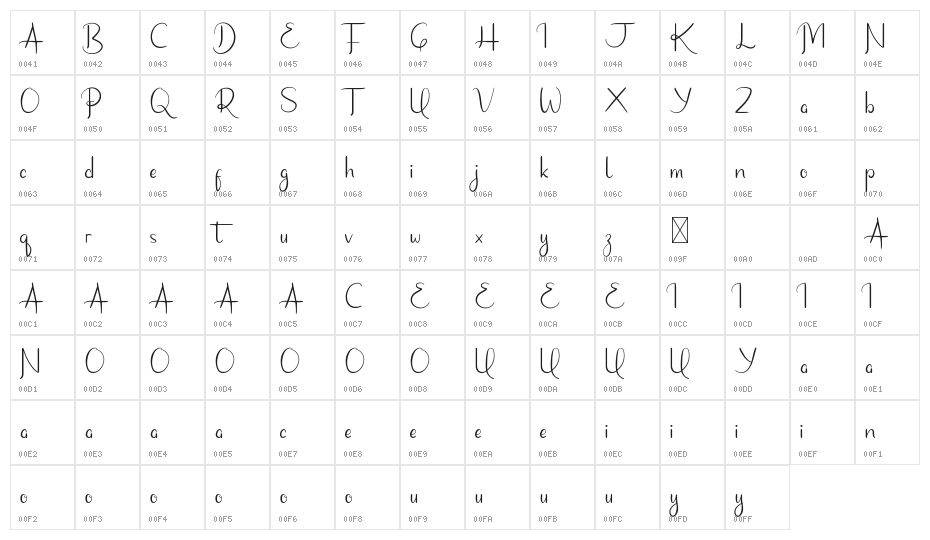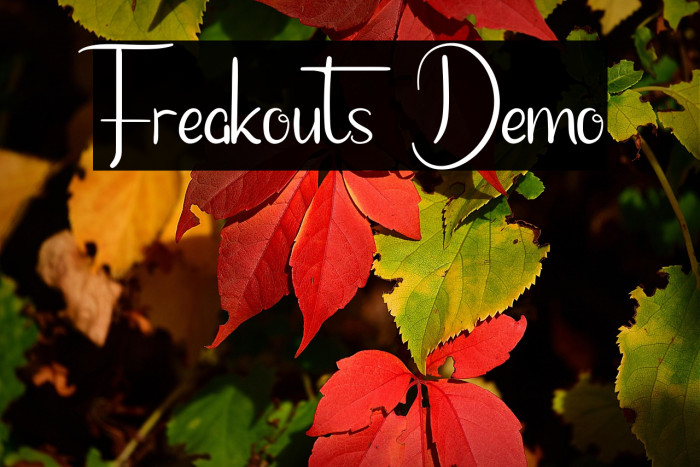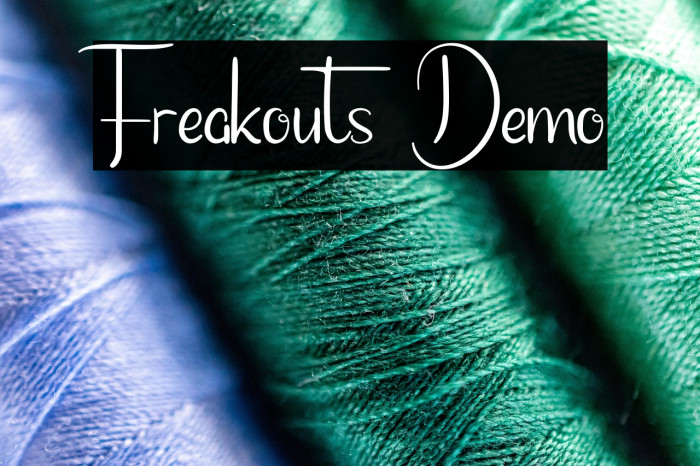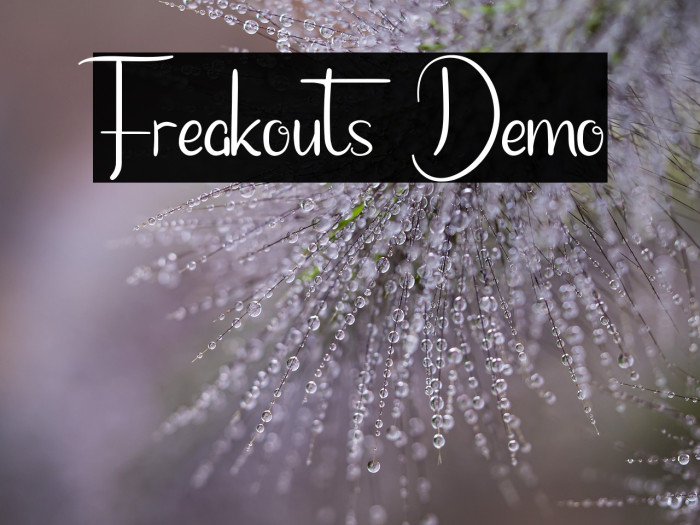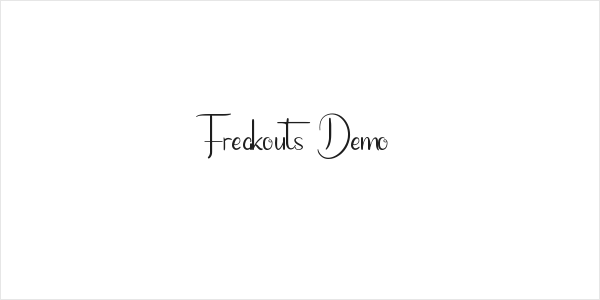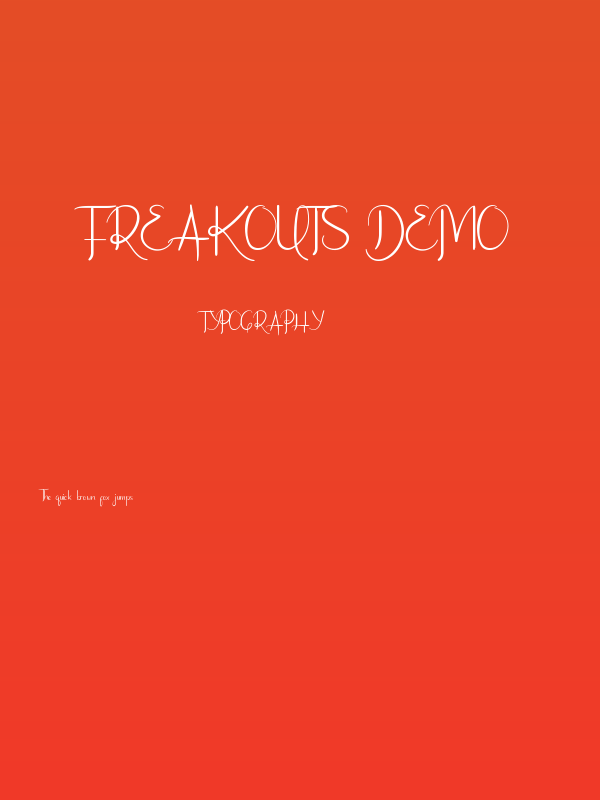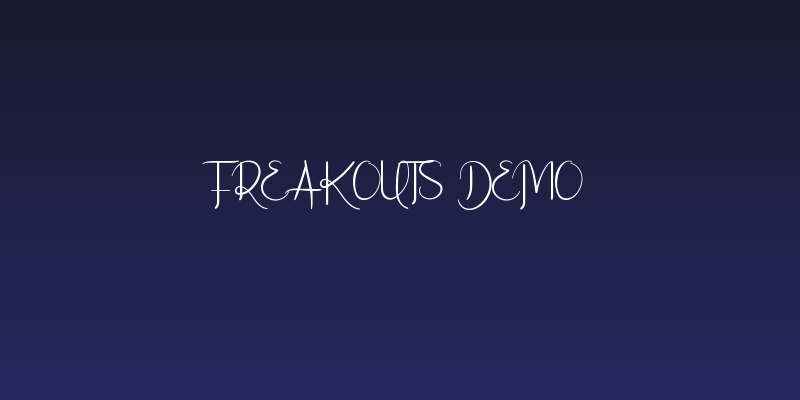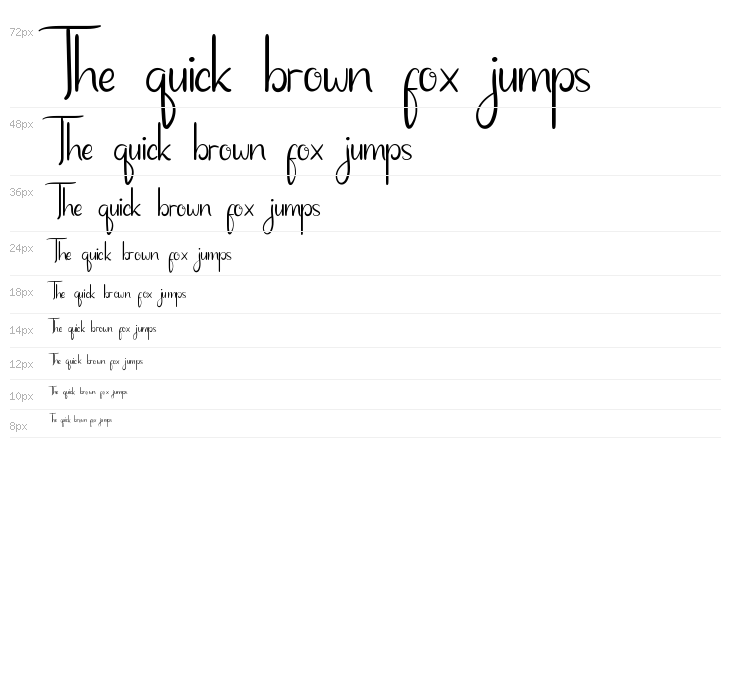
Freakouts Demo Font
Freakouts Demo Description
This font features a whimsical and decorative style, characterized by its elegant and flowing letterforms. The uppercase letters are tall and slender, with unique flourishes and loops that add a playful touch. The lowercase letters maintain this decorative theme, with some characters featuring distinctive swashes and curls. The overall design is cohesive, with a consistent stroke width that gives it a balanced appearance. This font's artistic flair makes it suitable for creative projects that require a touch of elegance and personality.
Use CaseLogos, Invitations, Artistic projects
Proposed ProjectsIdeal for wedding invitations, greeting cards, branding projects, and artistic posters.